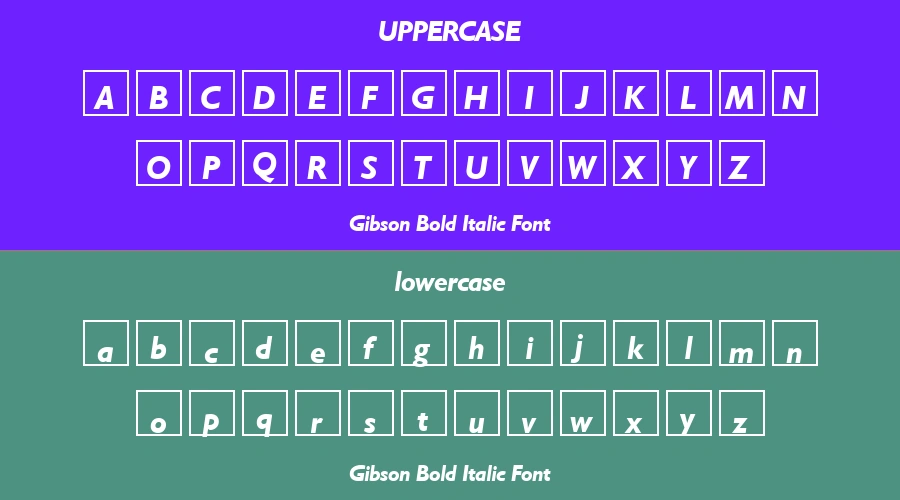
About Gibson Bold Italic Font
Designed with precision, Gibson Bold Italic Font merges perfect spacing with emotional appeal in every character. This versatility makes it particularly effective for logo design, where originality and visual authority directly impact communication quality. Each letterform demonstrates meticulous craftsmanship.
Technical excellence shines through elements like convex bowls and brand signatures, enhancing typographic versatility. In artistic statements settings, Gibson Bold Italic Font proves its worth through superior headline impact. The thoughtful execution of contrast level and cultural relevance ensures professional results.